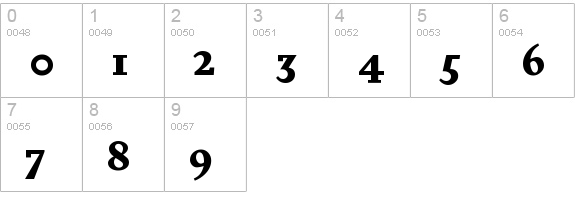
Josie-Bold Font Details
Josie-Bold is a strong, high-contrast variant in the Josie typeface family \xE2\x80\x94 well suited to headlines, attention-grabbing titles, and strong calls-to-action.
Introducing Josie-Bold font, a bold and impactful typeface designed to make a statement. With its strong, confident strokes and modern aesthetic, Josie-Bold is perfect for headlines, titles, and branding projects that demand attention. The font exudes a sense of power and sophistication, making it ideal for projects that require a bold and striking visual presence. What sets Josie-Bold font apart is its versatility - it can be used for a wide range of design applications, from posters and logos to websites and social media graphics. Its clean lines and sharp edges ensure readability at any size, while its boldness adds a touch of drama to any design. Best of all, Josie-Bold font is free to download at FontsMarket.com, making it accessible to designers and creatives of all levels. Whether you're working on a personal project or a professional assignment, Josie-Bold font is a reliable choice that will elevate your designs to the next level. Download it today and unleash the bold potential of your creativity with Josie-Bold font.